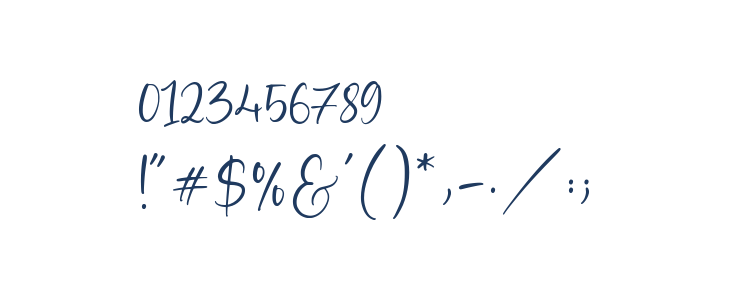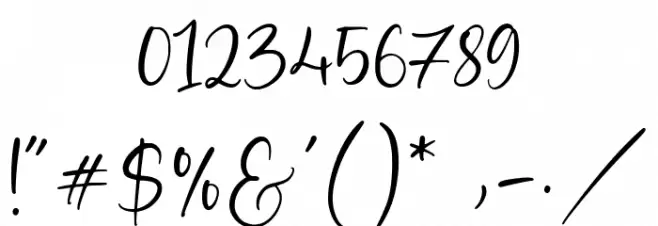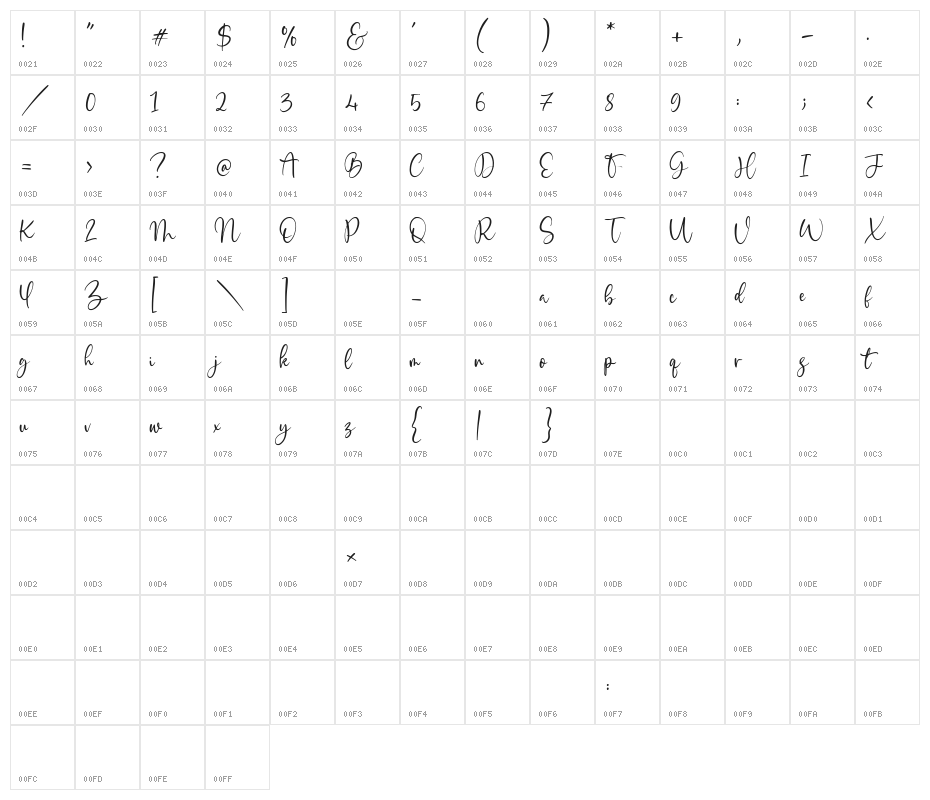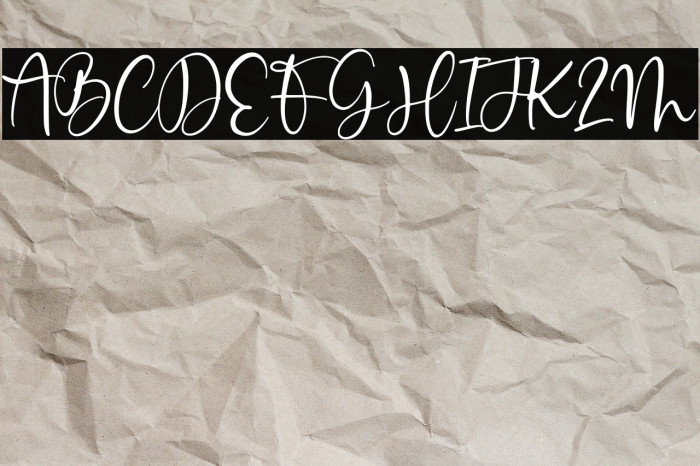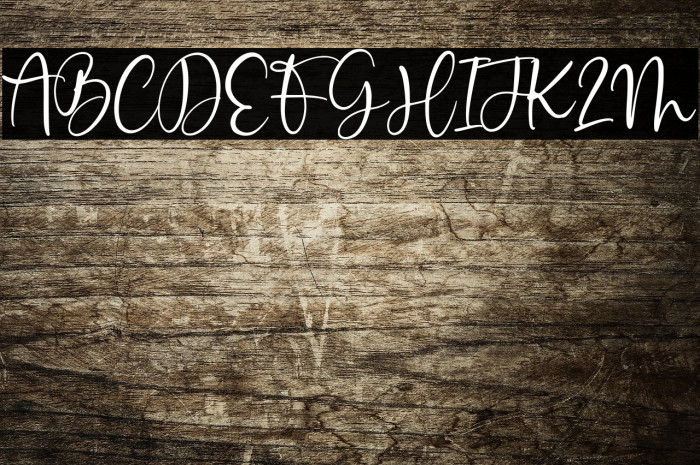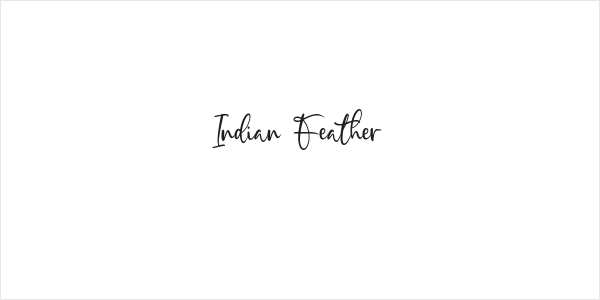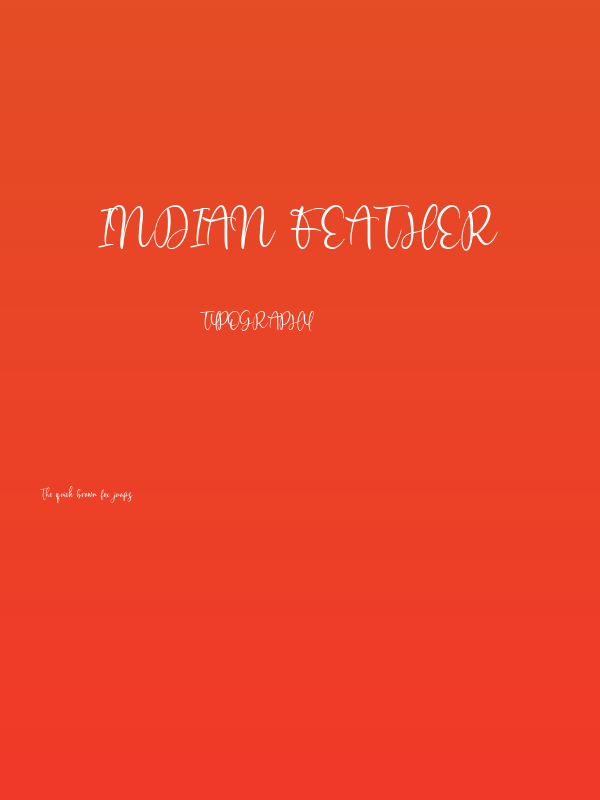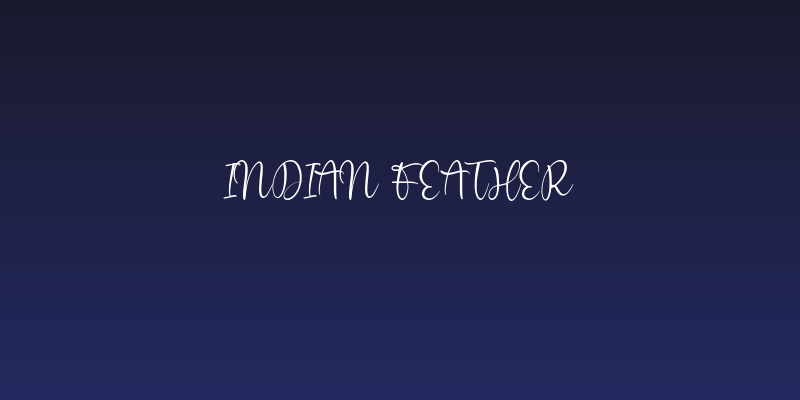
Indian Feather Font
Indian Feather Description
This elegant script font features a flowing, cursive style with smooth, connected strokes. The uppercase letters are bold and expressive, with intricate loops and swirls that add a touch of sophistication. The lowercase letters maintain a consistent flow, with gentle curves and a slightly slanted orientation, enhancing the handwritten feel. Numbers and special characters are designed to match the overall aesthetic, maintaining the same fluidity and grace. This font exudes a sense of elegance and creativity, making it ideal for projects that require a personal, artistic touch.
| Overall Style | Elegant, Artistic |